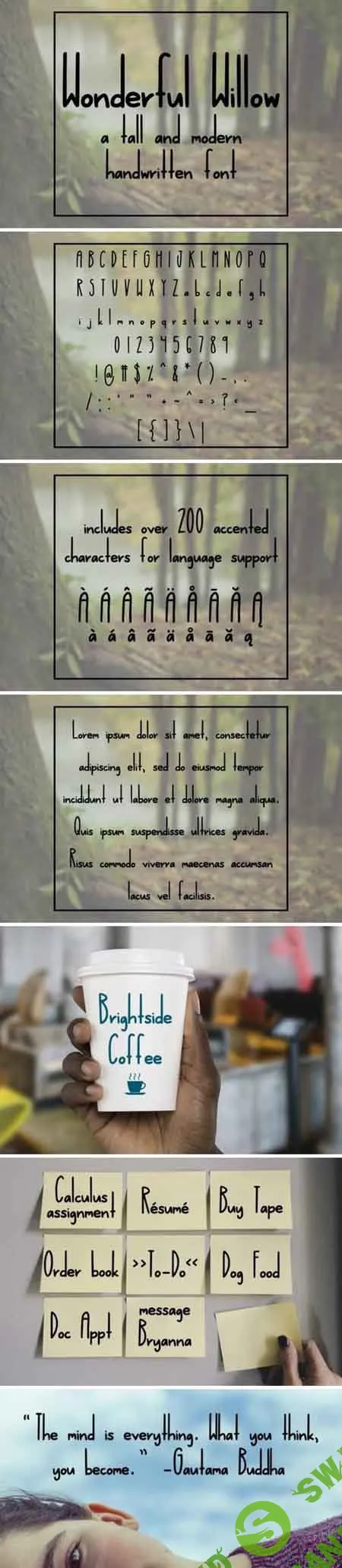
Название: Wonderful Willow Font
Wonderful Willow Font
The Wonderful Willow is a tall and skinny font. This modern font can be used for t-shirts, graphic designs, or tumblers!